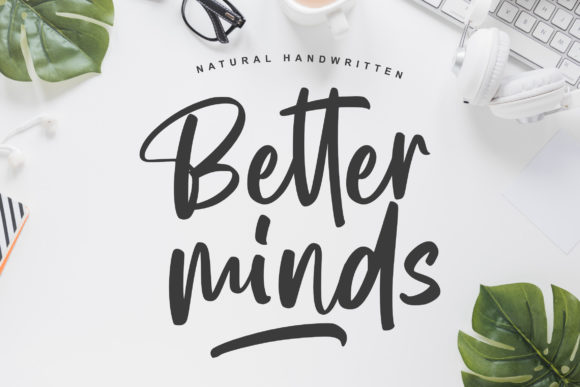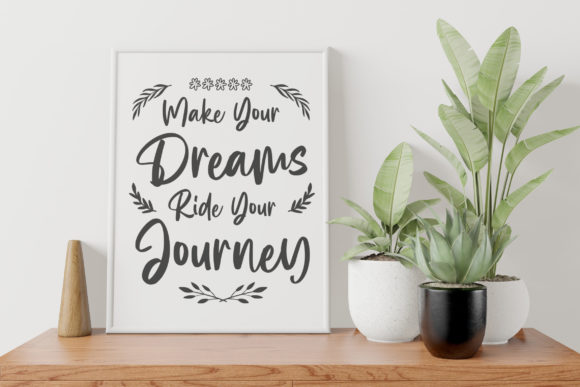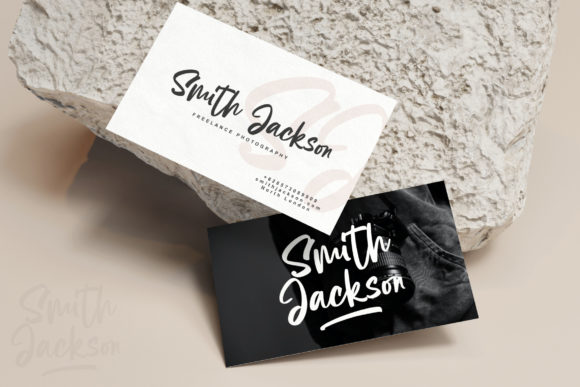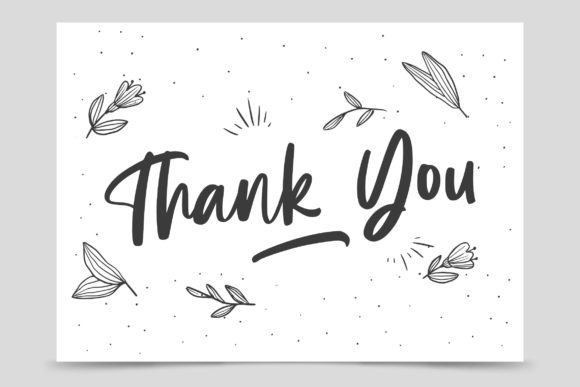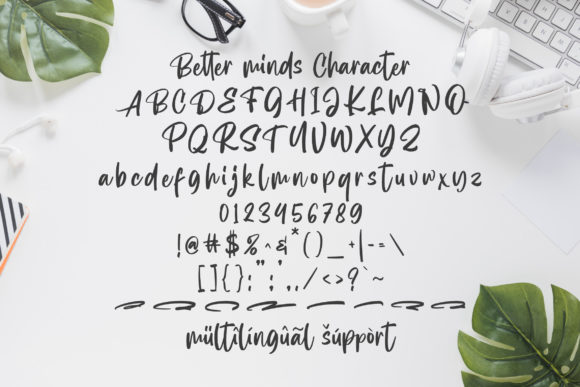
Better Minds Font
About Better Minds Font
Better Minds is a whimsical script font with a relaxed theme, featuring a lovely style. No matter the topic, this font will be an incredible asset to your fonts’ library, as it has the potential to elevate any creation.